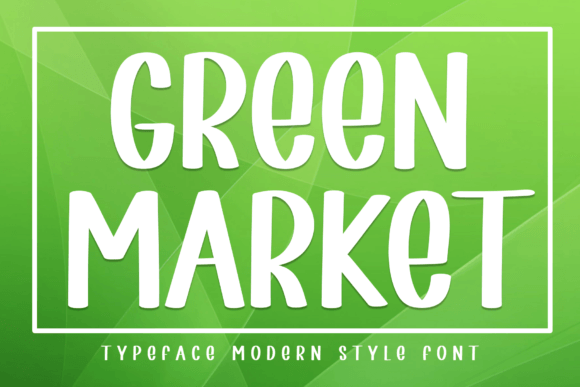
Welcome to the world of Green Market Font, a captivating display font family that will add a touch of charm and personality to your creative projects. Bold, playful, and bursting with character, Green Market Font is designed to make a statement and leave a lasting impression.
With its unique hand-drawn style, Green Market Font exudes warmth and friendliness, evoking the nostalgic charm of handwritten letters. Its playful curves and energetic strokes create a sense of movement and vibrancy, perfect for capturing attention and engaging your audience.
Step into a world of endless possibilities with Green Market Font. Let your imagination soar as you craft stunning wedding invitations that reflect your unique love story. Adorn your greeting cards with heartfelt messages, adding a personal touch that will make them cherished keepsakes. Unleash your creativity in logos, posters, and social media graphics that pop off the screen, demanding attention and leaving an unforgettable mark.
Green Market Font is not just a font; it's an expression of your individuality, a reflection of your playful spirit. Its versatility knows no bounds, allowing you to weave your creative magic across a diverse range of projects. Whether you're a seasoned designer or just starting your creative journey, Green Market Font is your perfect companion, guiding you towards remarkable designs that captivate and inspire.
Explore the enchanting world of Green Market Font today and embark on a creative adventure that will transform your designs into masterpieces. Embrace the joy of self-expression and let your imagination run wild. The possibilities are endless, and the journey begins with a single click.